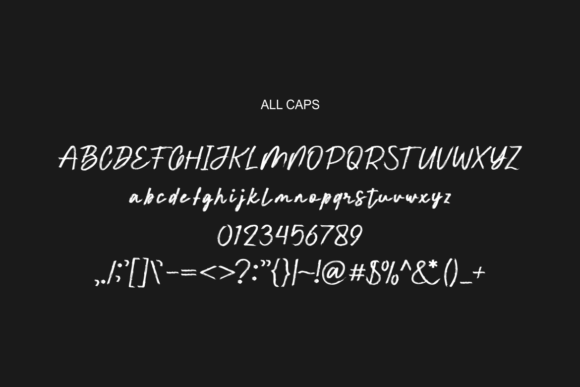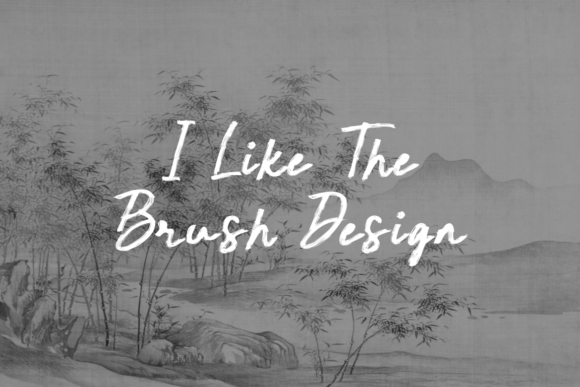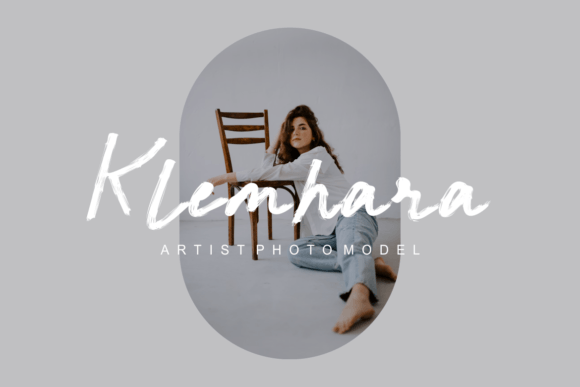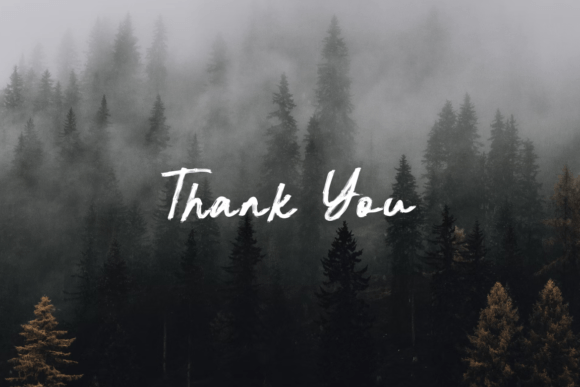
Introducing Elaughas Font: The Ultimate Modern Display Font for Your Branding Needs
In the world of design, a font can make all the difference in creating a lasting impression. Whether you’re a graphic designer, a crafty entrepreneur, or a branding expert, having the right font at your disposal can elevate your project from ordinary to extraordinary. This is where Elaughas Font comes into play – a bold, authentic, and modern display font designed to meet the diverse needs of your branding projects.
What is Elaughas Font?
Elaughas Font is a carefully crafted typeface that exudes modernity and confidence. Its bold and authentic style makes it an ideal choice for designers and crafters looking to add a touch of sophistication and uniqueness to their work. Whether you’re creating a logo, designing a t-shirt, or developing a brand identity for an esport team, Elaughas Font is versatile enough to stand out in a wide range of contexts.
Key Features of Elaughas Font
- Bold and Authentic Style: Elaughas Font boasts a bold and authentic style that commands attention. Its unique character set ensures that your designs will have a distinctive look that sets them apart from the crowd.
- Versatility: One of the key advantages of Elaughas Font is its versatility. It can be used across various platforms and mediums, from digital screens to print materials, making it a valuable addition to your design toolkit.
- Easy to Read: Despite its bold nature, Elaughas Font remains clear and easy to read, even at smaller sizes. This makes it perfect for use in a variety of applications, from signage to merchandise.
- High-Quality Design: Elaughas Font is meticulously designed with high-quality in mind. Its smooth lines and well-balanced characters ensure a professional look that will elevate your designs.
Use Cases for Elaughas Font
Elaughas Font’s adaptability makes it suitable for a myriad of projects. Here are some of the most popular use cases:
- Logo Design: Create a memorable logo that stands out with Elaughas Font. Its bold and modern style ensures that your brand makes a strong first impression.
- T-Shirt Printing: Design eye-catching t-shirts with Elaughas Font. Its clear and readable nature makes it perfect for apparel printing.
- Esports Branding: In the competitive world of esports, branding is crucial. Elaughas Font can help you create a professional and modern brand identity that resonates with your audience.
- Digital Marketing Materials: From social media graphics to website headers, Elaughas Font can add a touch of modernity and professionalism to your digital marketing materials.
Why Choose Elaughas Font?
With so many fonts available, why should you choose Elaughas Font for your projects? Here are a few compelling reasons:
- Unique Style: Elaughas Font offers a unique style that can help your designs stand out in a crowded marketplace.
- Time-Saving: With Elaughas Font, you can achieve professional-looking results quickly and efficiently, saving you time and effort.
- Support for Various Languages: Elaughas Font supports multiple languages, making it a great choice for global brands or projects with diverse audiences.
Elaughas Font is more than just a typeface – it’s a design solution that can elevate your branding projects to new heights. Its bold, authentic, and modern style, coupled with its versatility and readability, makes it an indispensable tool for designers and crafters. Whether you’re looking to create a stunning logo, design appealing merchandise, or develop a strong brand identity, Elaughas Font is the perfect choice. Embrace the power of Elaughas Font and take your designs to the next level.